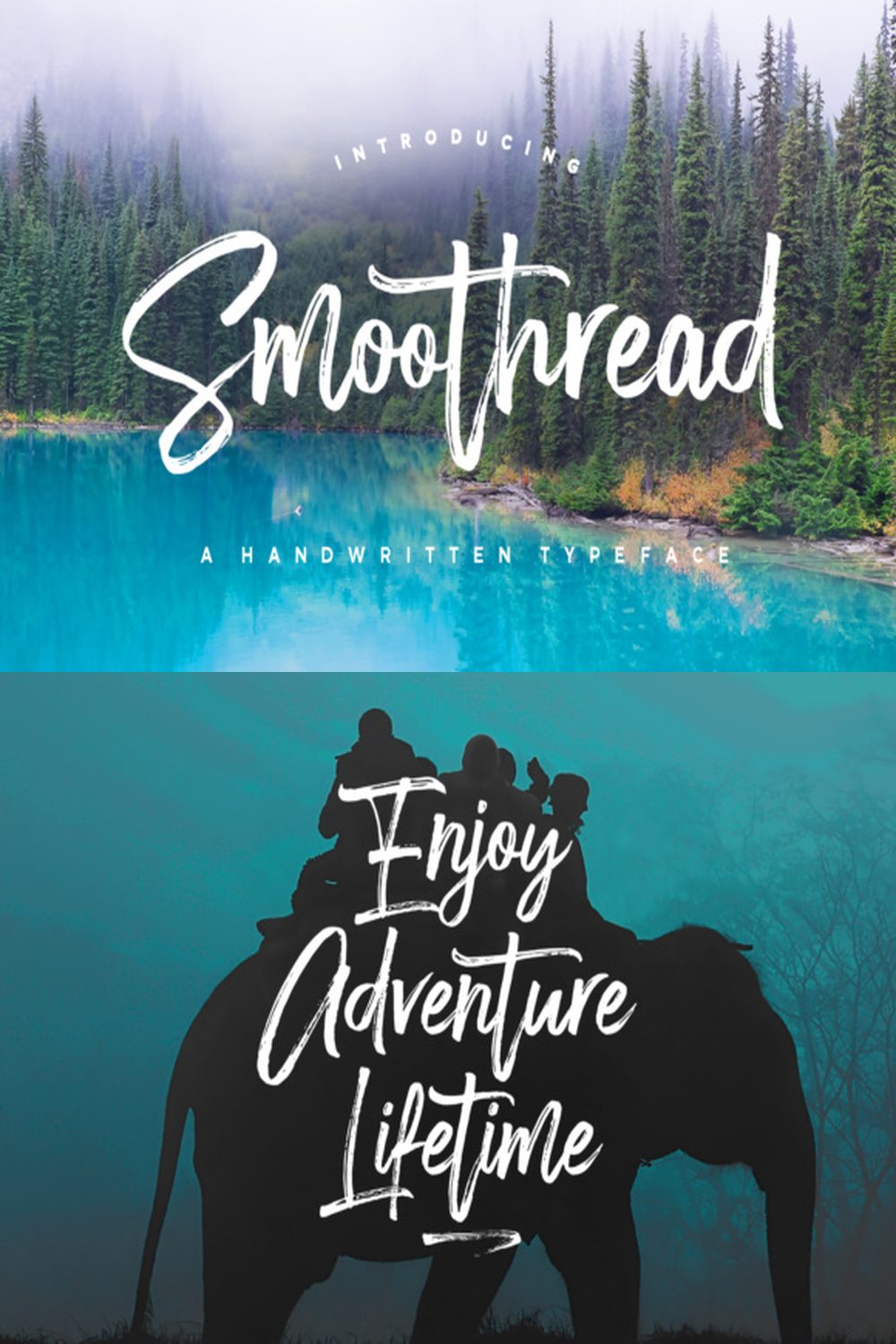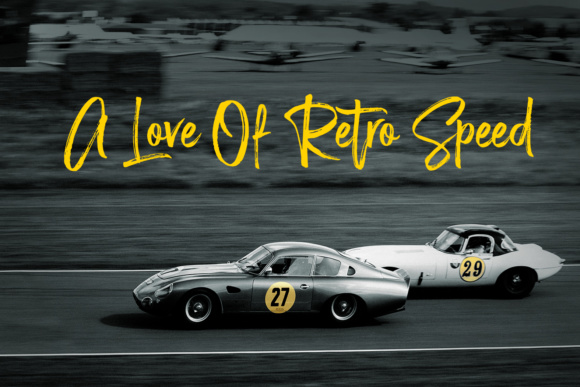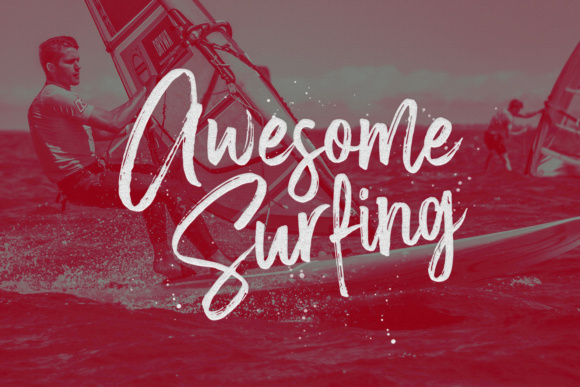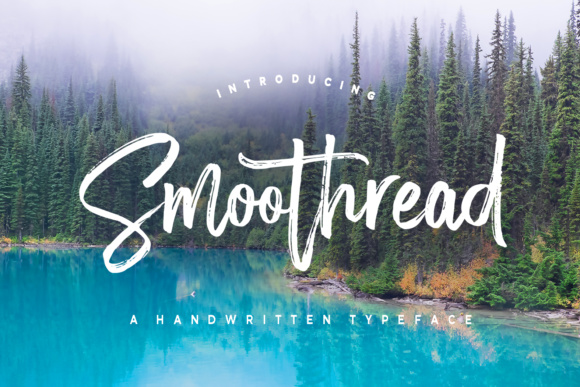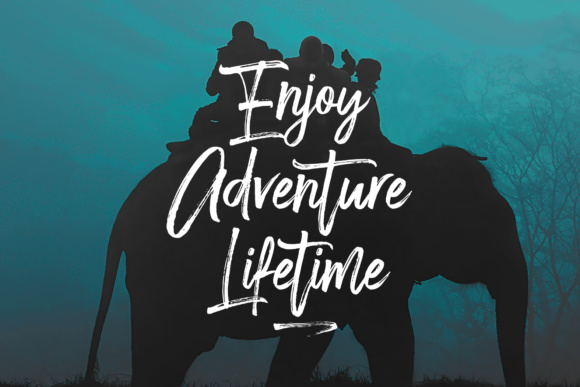
Smoothread Font: A Natural Handwritten Brush Font for Creative DIY Projects
About the Smoothread Font
Meet Smoothread Font, a stunning font that brings a touch of elegance and professionalism to any design. Smoothread is a beautiful, textured handwritten brush font with a contemporary sensibility towards design. This font has a handmade, natural feel and is suitable for use in a wide range of works.